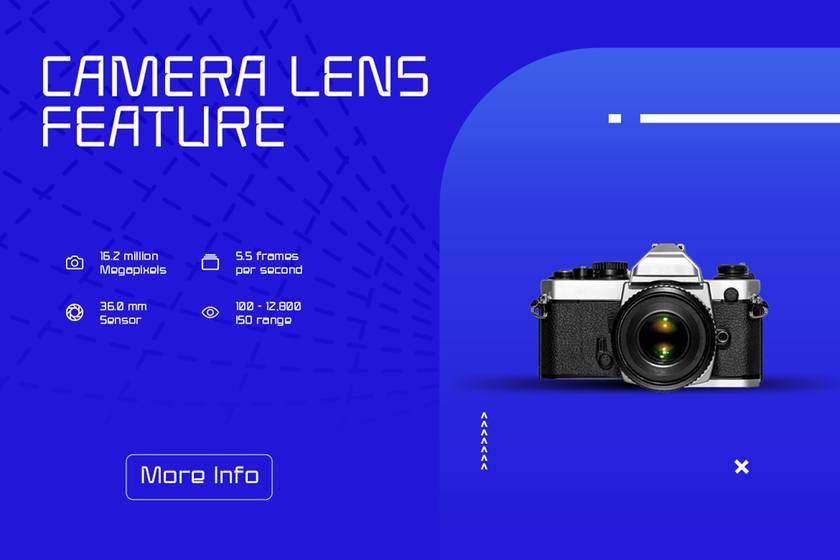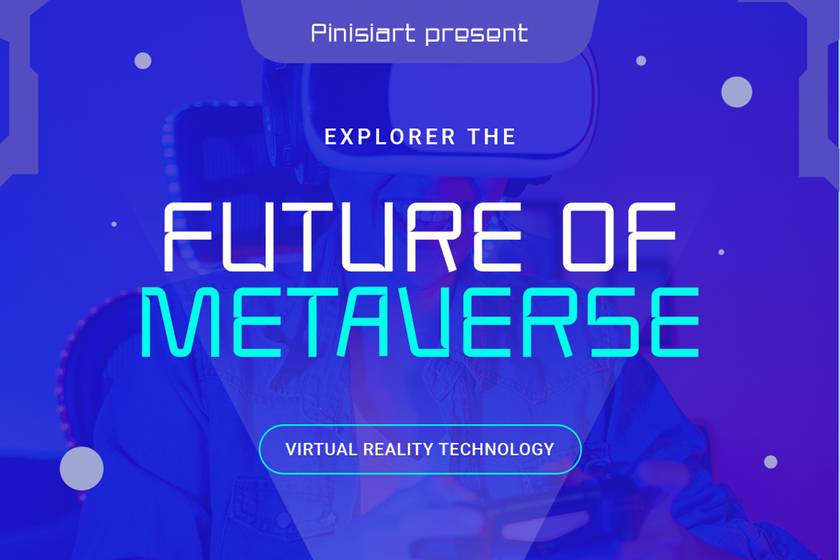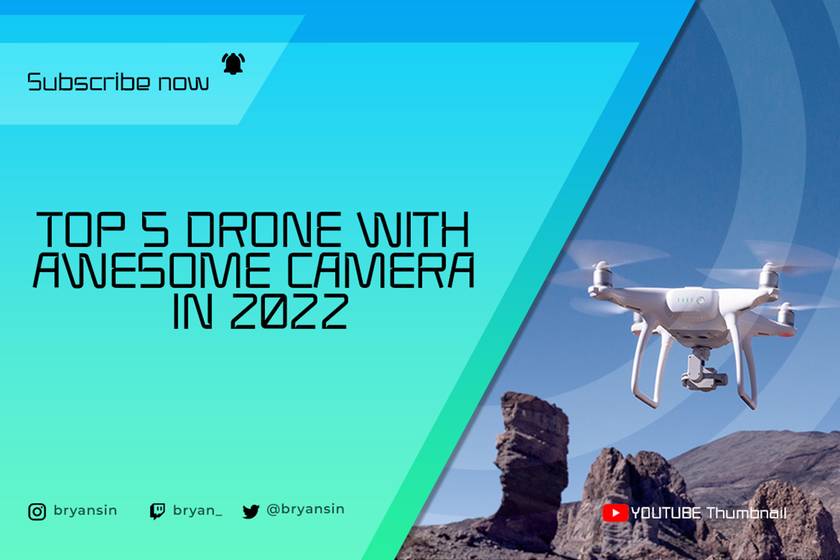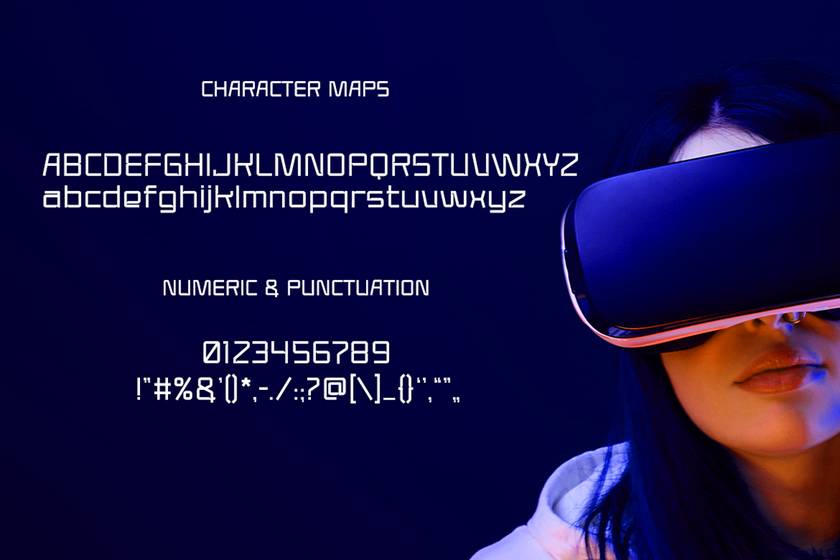
Mars Project is a modern sans serif font with a futuristic, technical feel characterized by its narrow, geometric letterforms and monoline stroke weight. It features a clean, slightly condensed design with high x-height and distinctive squared shapes that give it a sharp, digital appearance, making it ideal for technology, sci-fi, and innovation-focused branding or editorial use. Its legibility and sleek style work well for headlines, logos, and user interface design where a modern and cutting-edge impression is desired.
Mars Project Font
About Mars Project Font